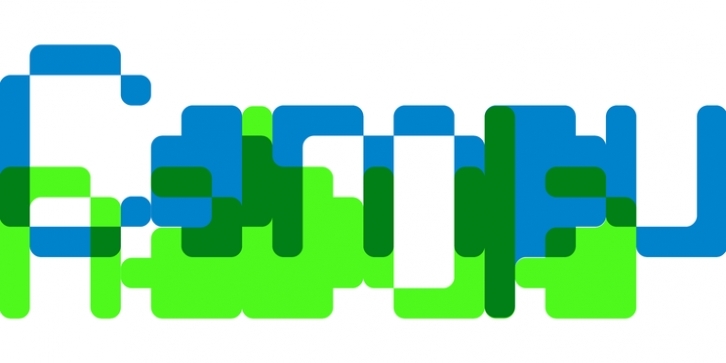
A low resolution, 8 bit font redesigned for a high resolution world. Taking a cue from its name, Compunabula is an homage to outdated computer technologies, things that we have put behind us.
In a world of floppy disks and cartridges — the curved line is king.